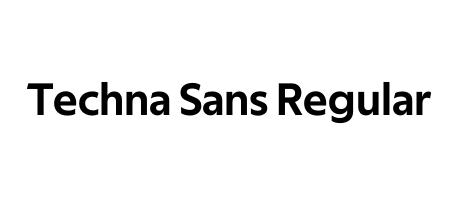
Techna Sans
By Carl Enlund
Techna Sans Regular: A clean, modern sans-serif font. Its straightforward, geometric forms exude a sense of efficiency and professionalism. The letters are well-spaced, offering excellent readability. It's versatile enough for both body text and headlines, conveying a sense of contemporary sophistication. A dependable choice for clear and concise communication.